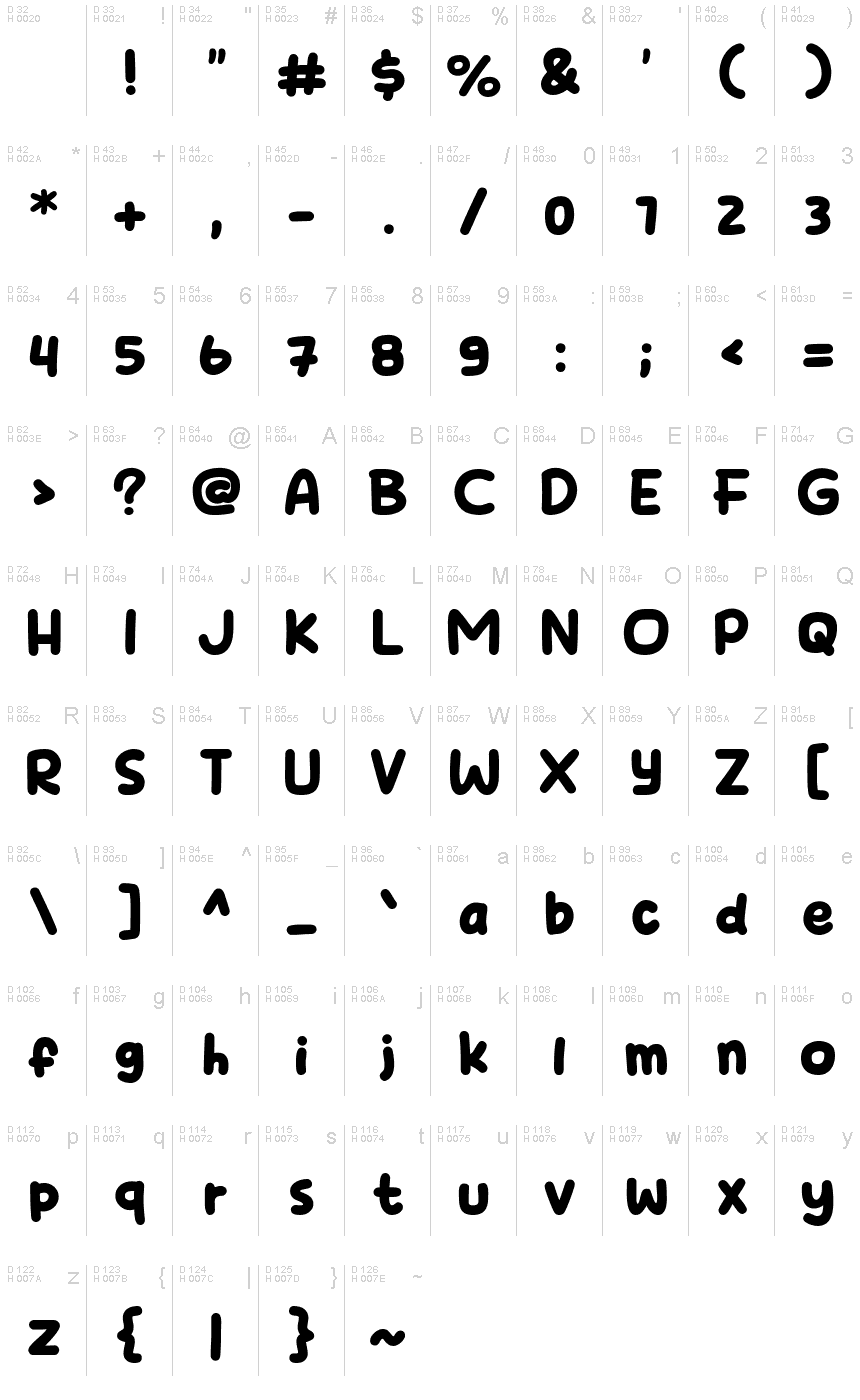
Child Chat
Child Chat, a bold and playful display font by Khurasan, adds a touch of whimsy to any project. With its cartoon-style design, this font brings life and personality to children's books, animated films, and toy packaging. Its bold weight ensures that your message stands out, while its display typeface captures the imagination of young readers. Whether you're creating a colorful website or designing an eye-catching poster, Child Chat is the perfect choice for projects that need a fun and energetic vibe. Let your creativity soar with this lively font!